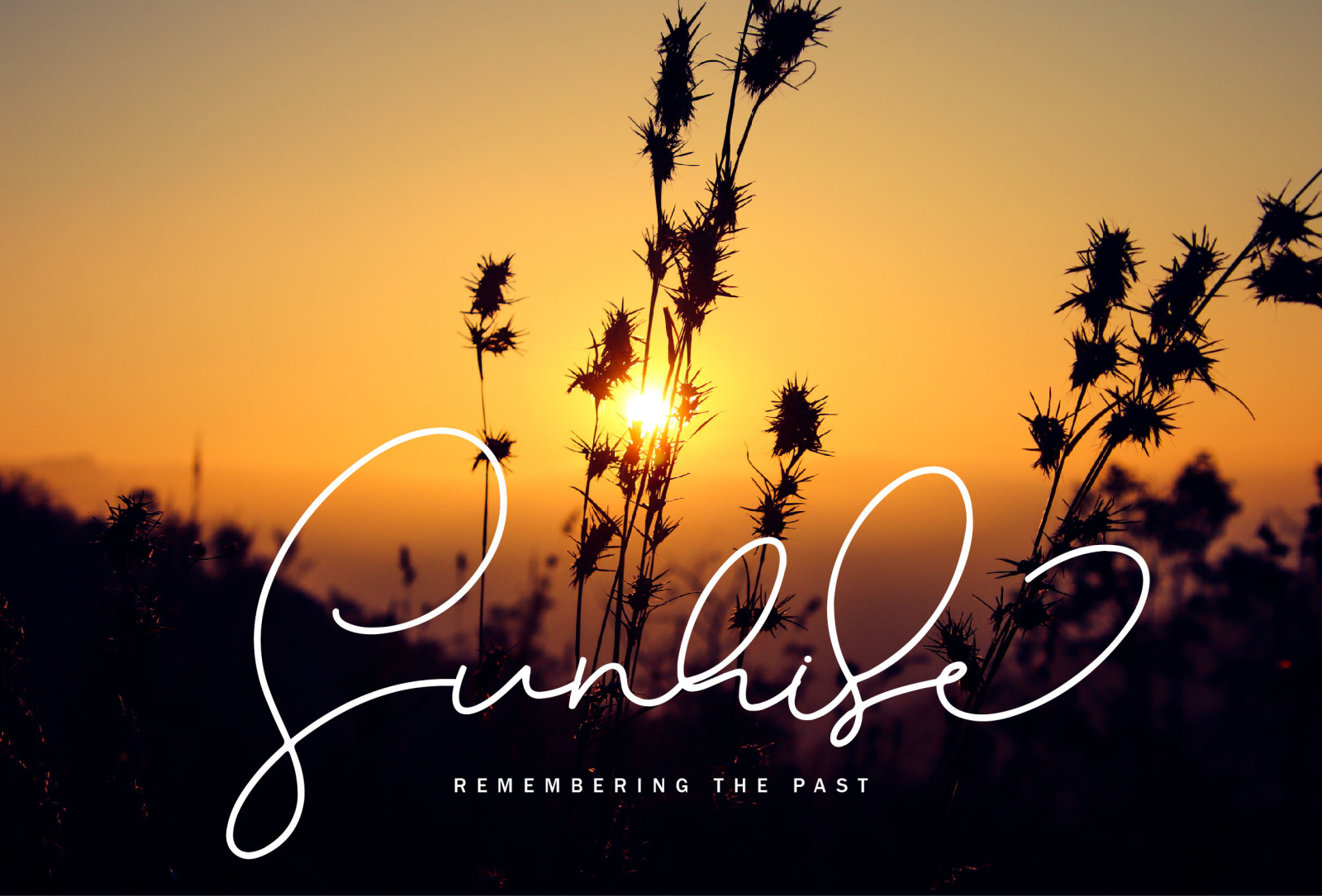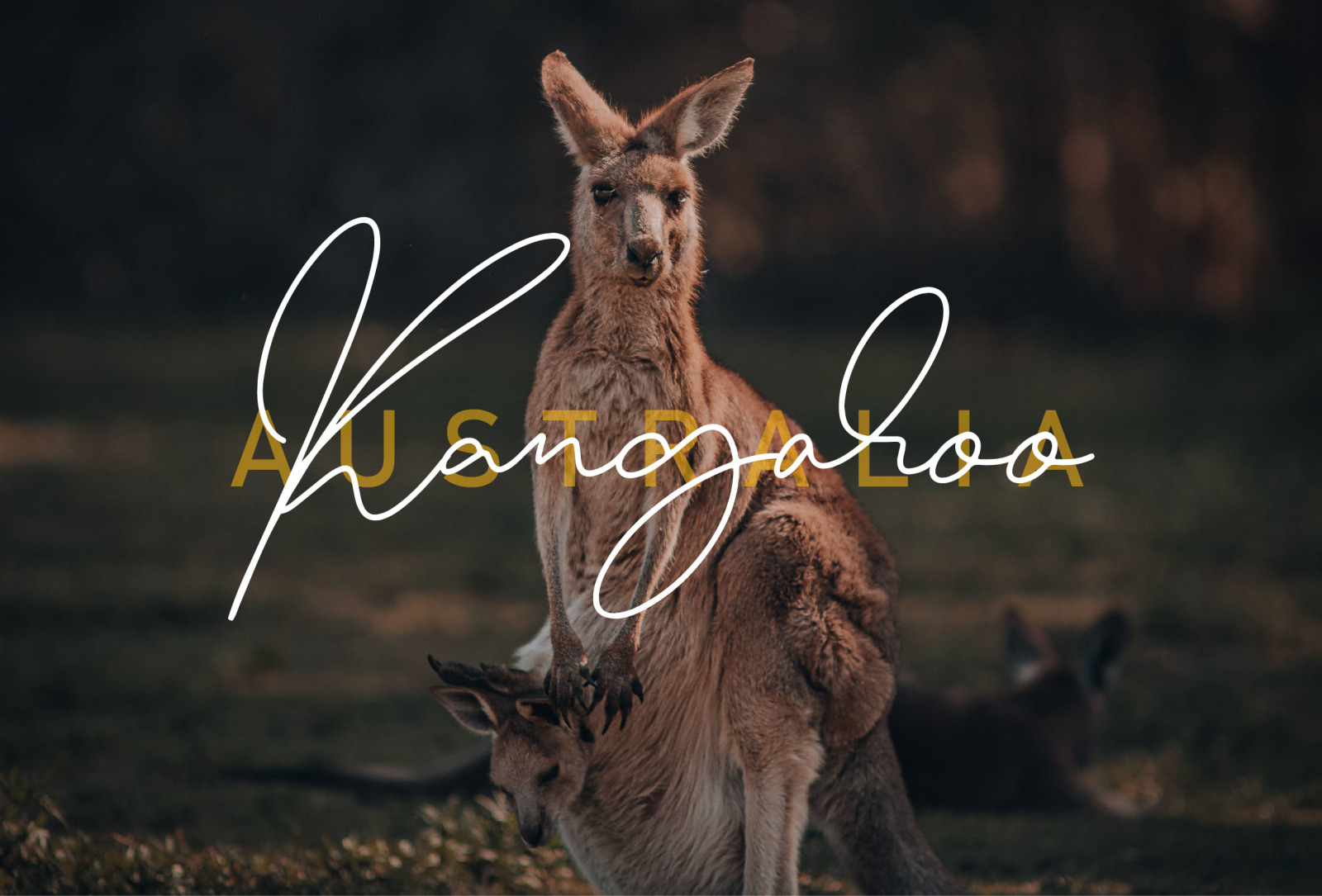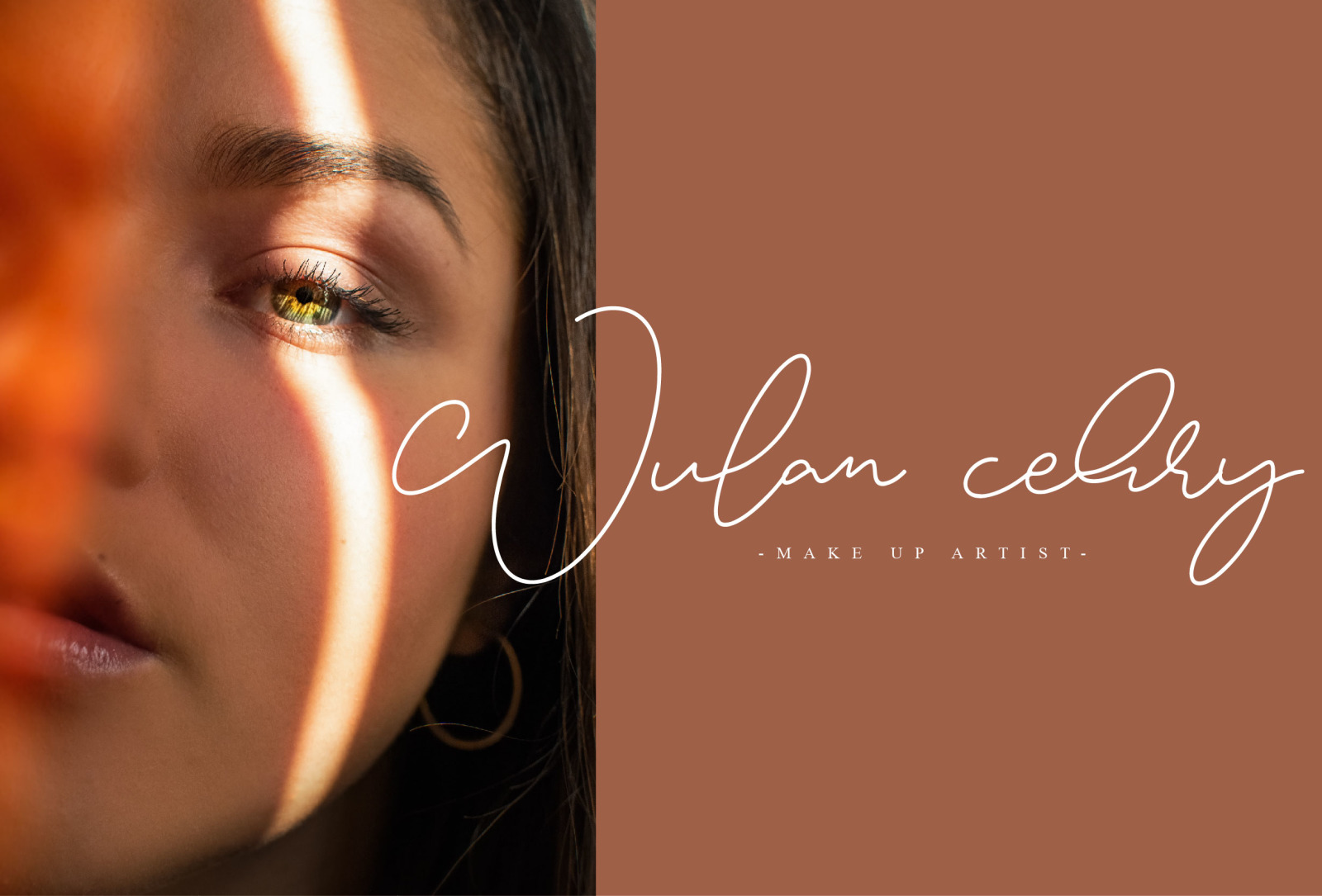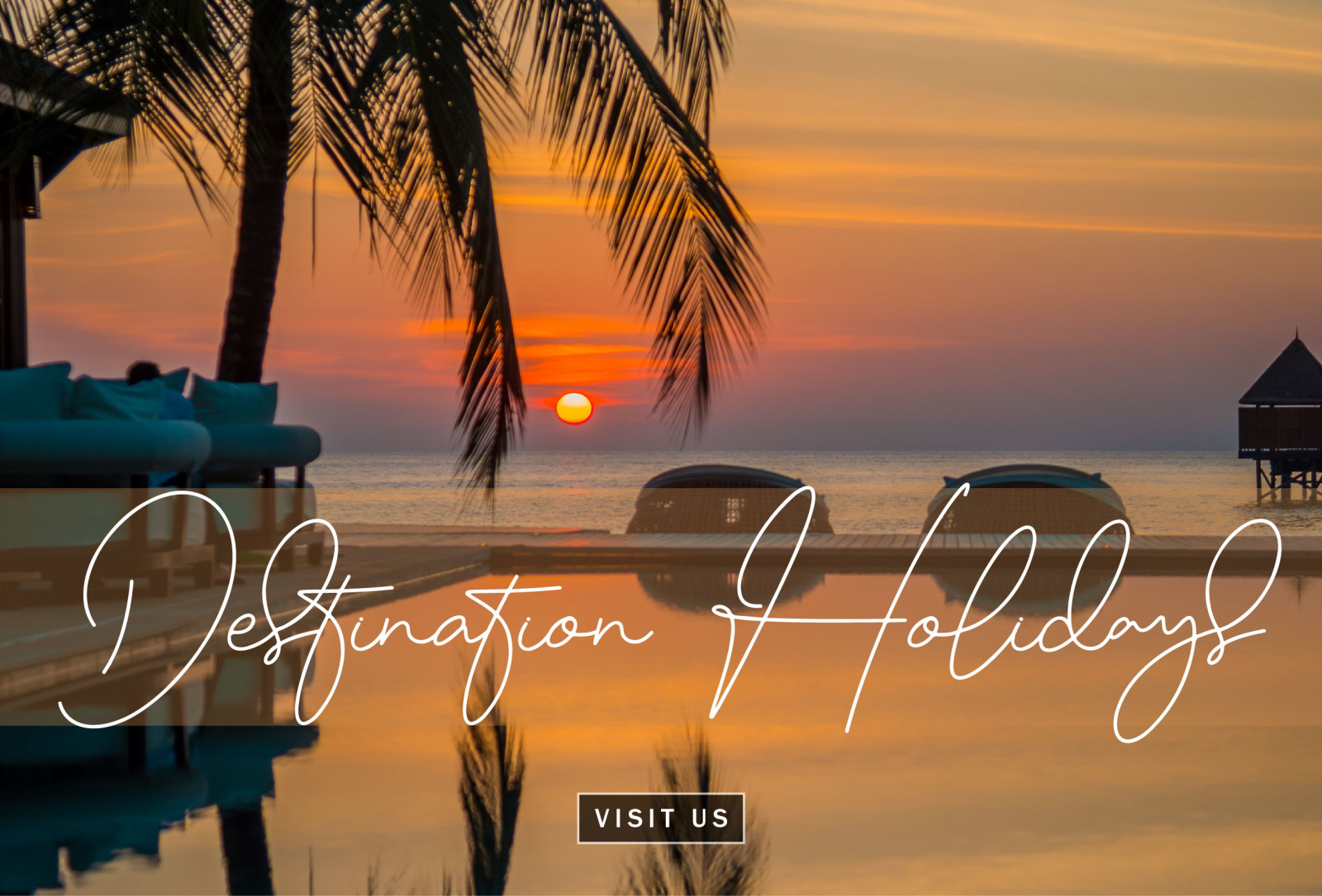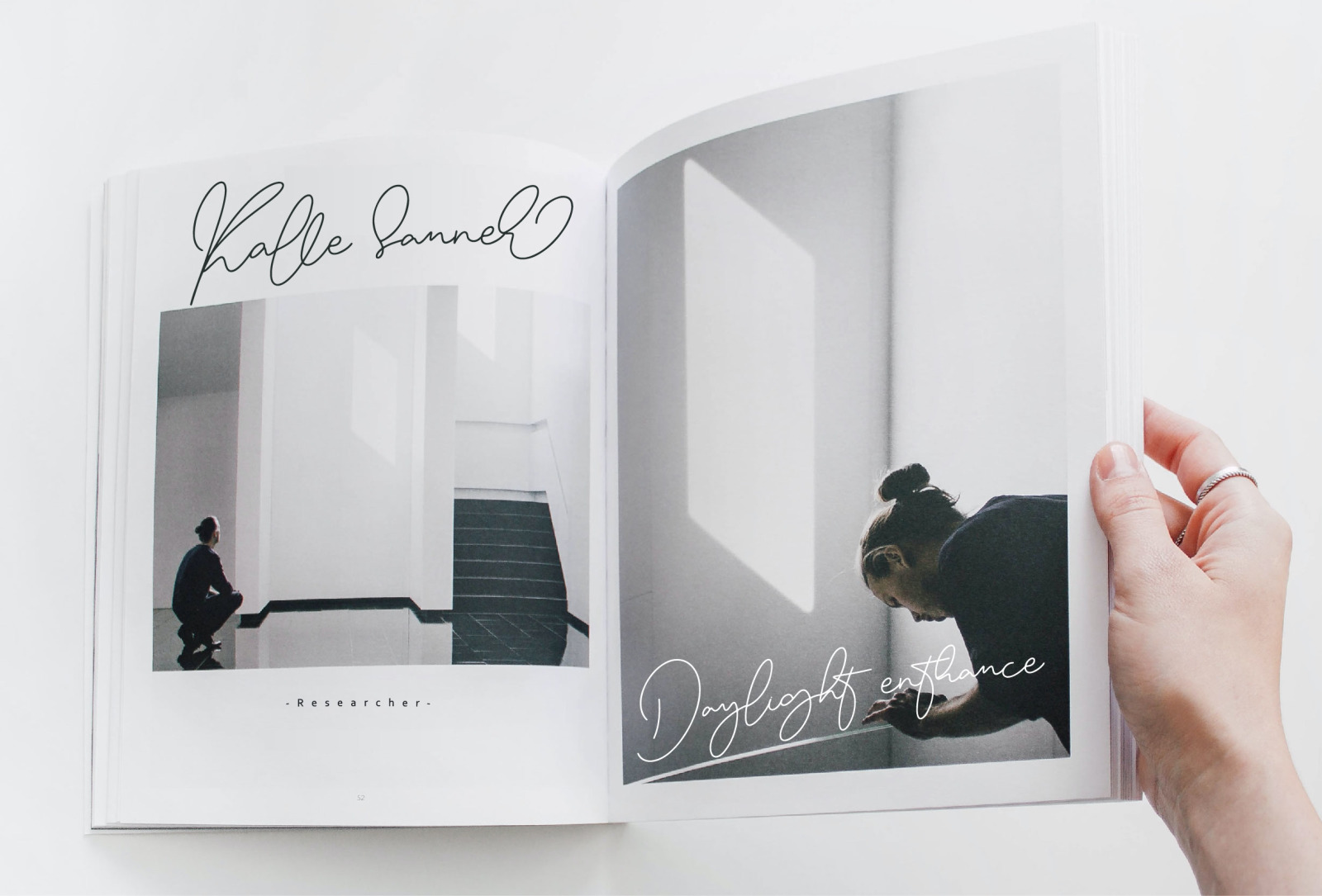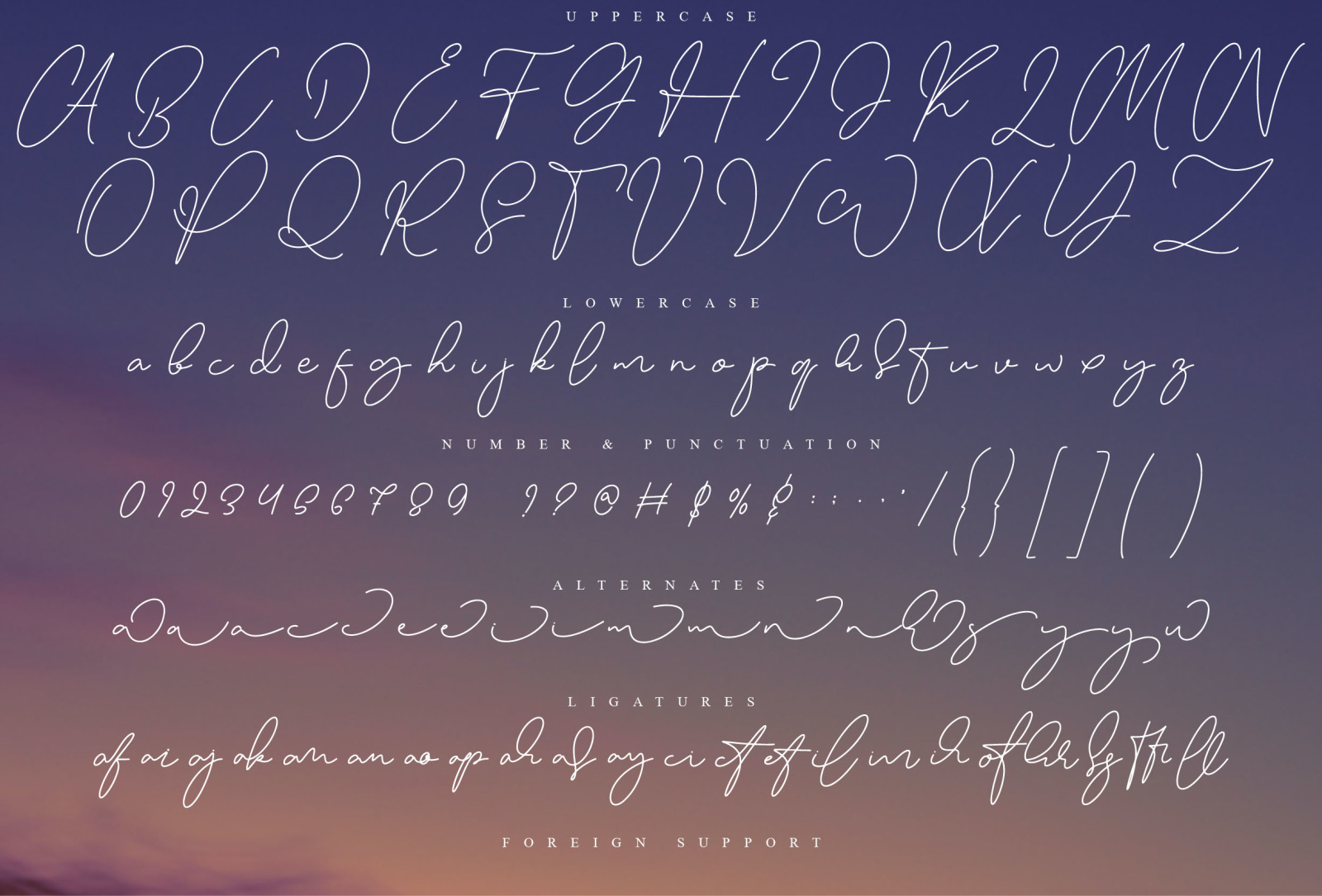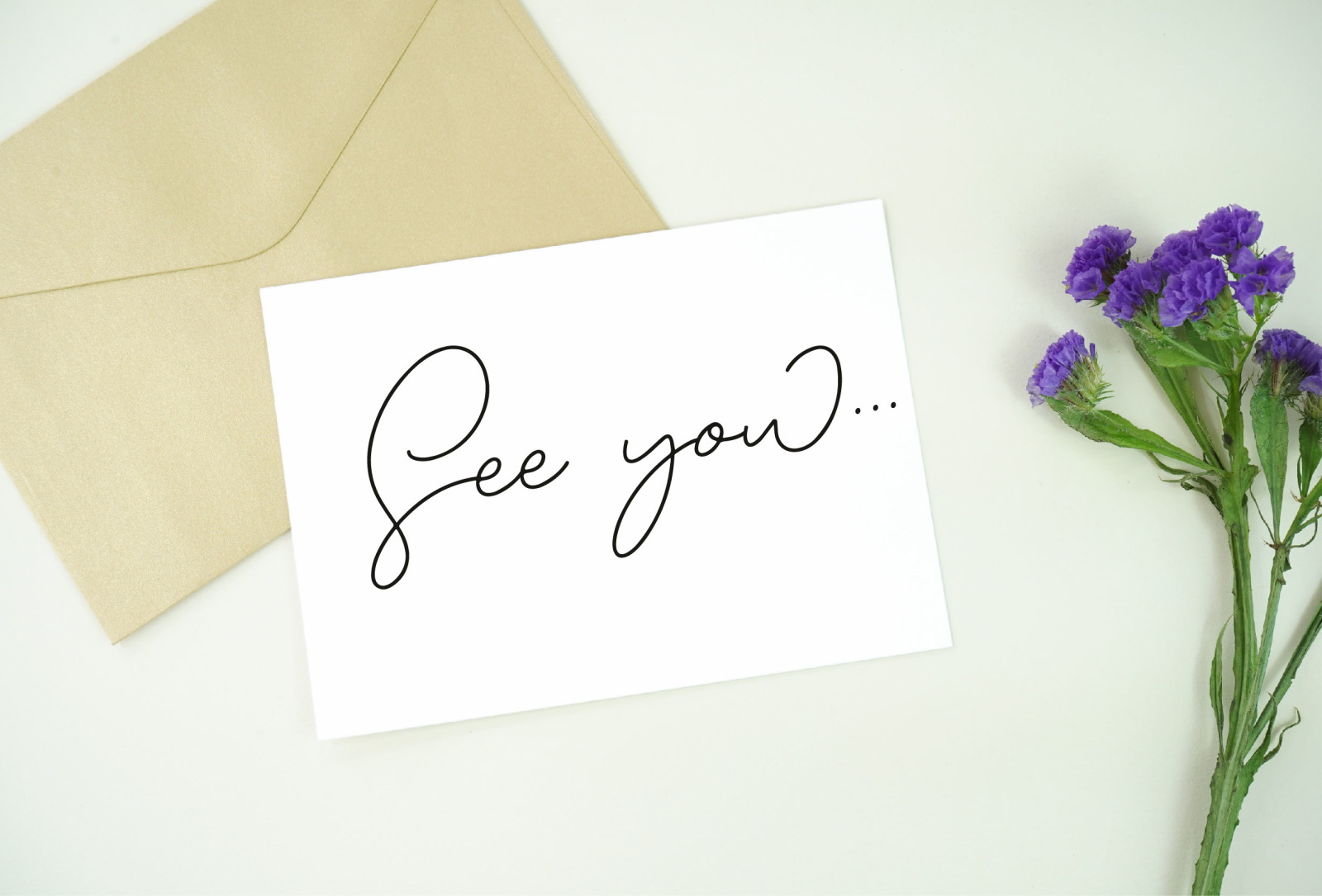
Australlia - A signature font
Australlia Signature is a script typeface with hand-drawn monoline lines and simple lines that make this font look pretty and modern. Get a touch of a modern, simple, and fun signature script font, with glyphs and features open type with styles and binders, Ligatures, and alternative additions bundled together with swashes. It can be used for various purposes. such as brand names, wedding cards, business brands, logos, book covers, magazine designs etc.
Australlia signature is supported with additional characters that have an Alternative shape along with swashes and ligatures that will help you achieve beautiful styles with your own creations.
FEATURES;
-Uppercase, Lowercase, Foreign Support, Numbers and Punctuation
-Alternatives, Swashes and Ligatures